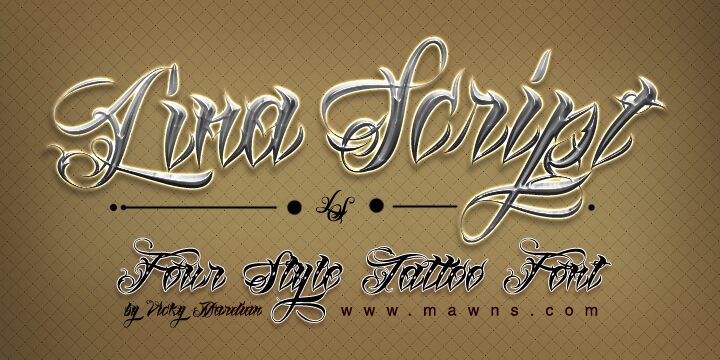
Lina Script Dot by Mans Greback is a free calligraphic script with extravagant swashes and a sharply theatrical silhouette. Its letters shift between broad dark strokes and hairline loops, with pointed cuts, hooked tips, and long flourishes that often sweep far beyond the main forms, giving the alphabet a restless, hand-cut edge beneath its elegance.
Fashion branding is its strongest setting, especially for dramatic logos and campaign graphics. The same ornate movement suits album covers, performance posters, and formal invitations, where the lettering can become part of the decorative image rather than a neutral caption, with an unmistakably elaborate flourish.